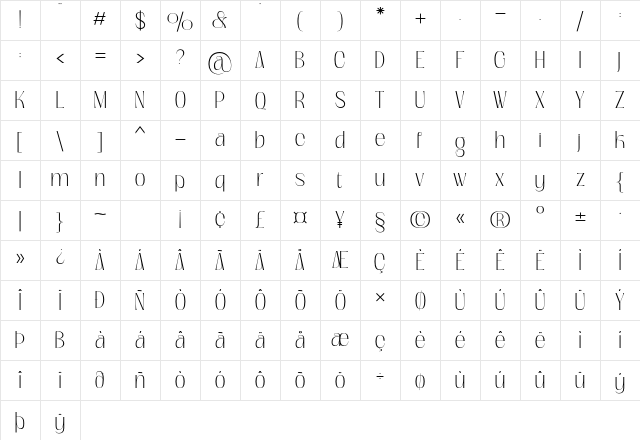
Complete Aloha Magazine - Demo Version Thin Regular glyph index. Displaying only characters natively supported by Aloha Magazine - Demo Version Thin Regular font.
Aloha Magazine - Demo Version Thin is a composed and adaptable typeface that performs quietly and consistently across a wide range of design contexts. Its slender proportions lend an understated elegance to any composition.